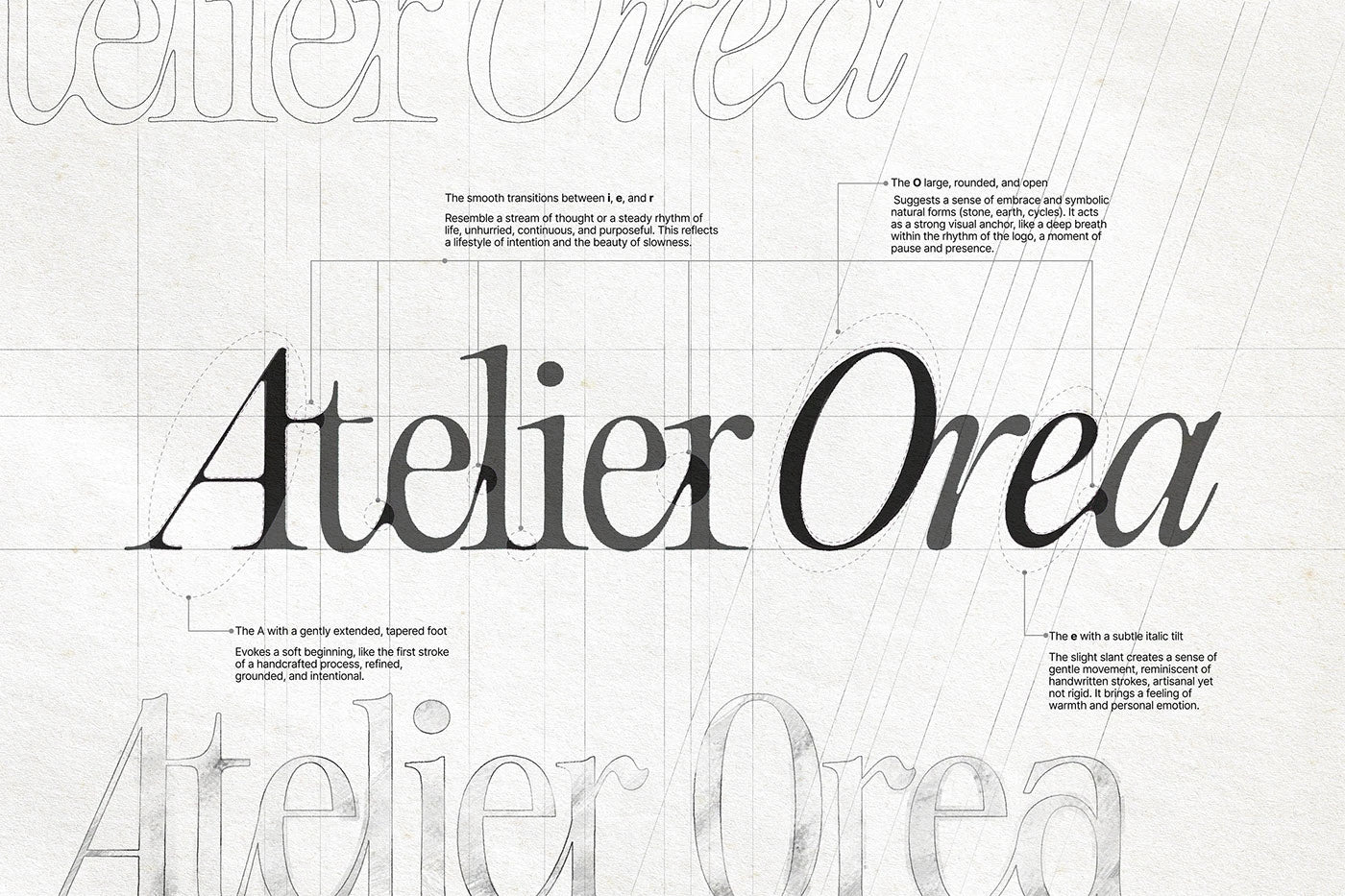
Atelier Orea was built for the conscious minimalist. The challenge was to create a sustainable lifestyle brand that felt global yet grounded—premium enough for a luxury market, but transparent enough to avoid the "greenwashed" aesthetic.
Our strategy, Earthbound Intention, centers on subtraction. By removing the unnecessary, we allowed raw materials and slow craft to lead the narrative. The result is a visual system with a quiet, human restraint rooted in nature, time, and touch.
The Wordmark: Grace Meets Structure
The Atelier Orea logo is a balance of editorial refinement and organic warmth. We selected a serif form for its timelessness, then introduced subtle curves and italic moments to evoke a sense of movement and "hand-done" intention. It is a mark designed to anchor the brand, transitioning seamlessly from high-end editorial layouts to tactile, minimal packaging.
The Toolkit: Holding Space
The Toolkit: Holding Space To ensure the brand remained impactful without "shouting," we developed a toolkit focused on texture and rhythm: Typography: A sculptural serif for expressive display, paired with a utilitarian sans-serif for functional clarity.
Palette: An earth-led foundation of Warm White, Sand, and Charcoal, punctuated by soft accents of Terracotta and Periwinkle to inject emotion without adding noise.
Graphic Language: We utilized generous negative space and line-based motifs inspired by natural horizons. These elements act as structural guides rather than mere decoration.
Brand in Action: Proof in Detail
We translated the system into a hierarchy where the logo acts as a signature, typography tells the story, and materials provide the proof. In campaign layouts, we traded "salesy" headlines for poetic pacing and confident serif type that spotlights the brand's provenance. Whether on a woven label or a digital social template, the identity remains understated, allowing the quality of the material and the honesty of the light to define the luxury experience.